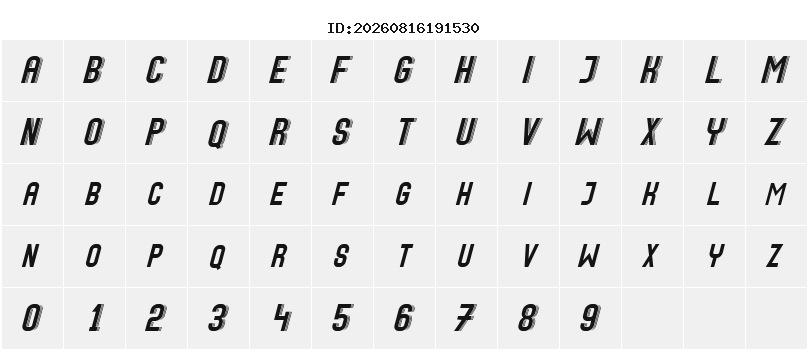
• Font Name: Speed+
• Designer: atrax
About Speed+.ttf
Speed+.ttf is a modern, elegant sans-serif font designed for ultimate readability and visual harmony. Perfect for branding, headlines, web design, and print materials.